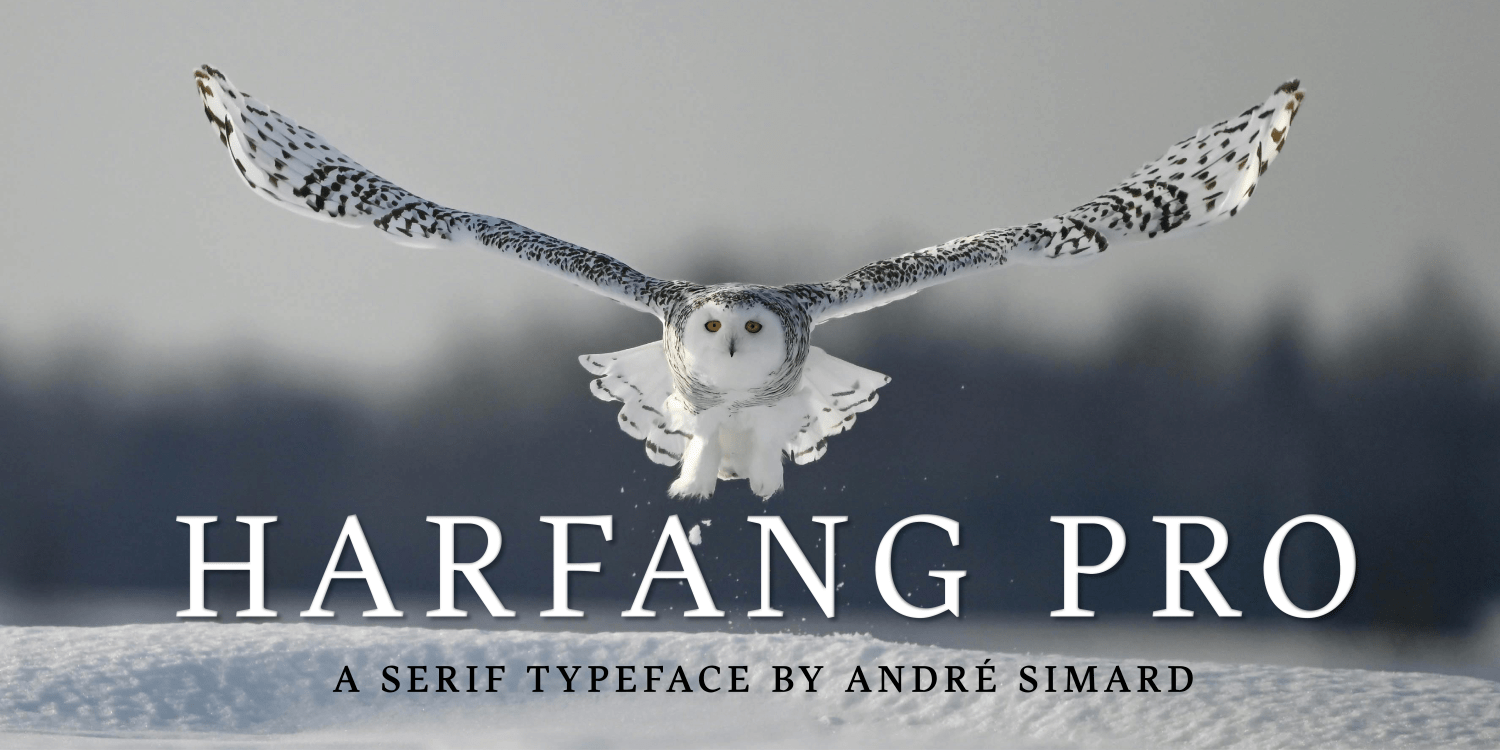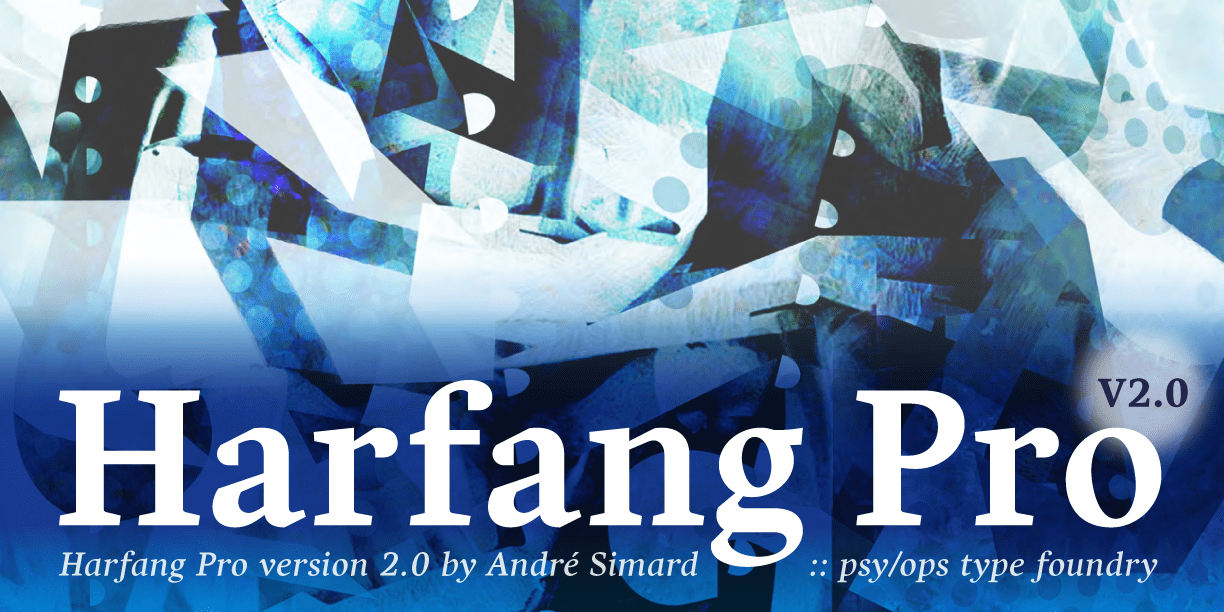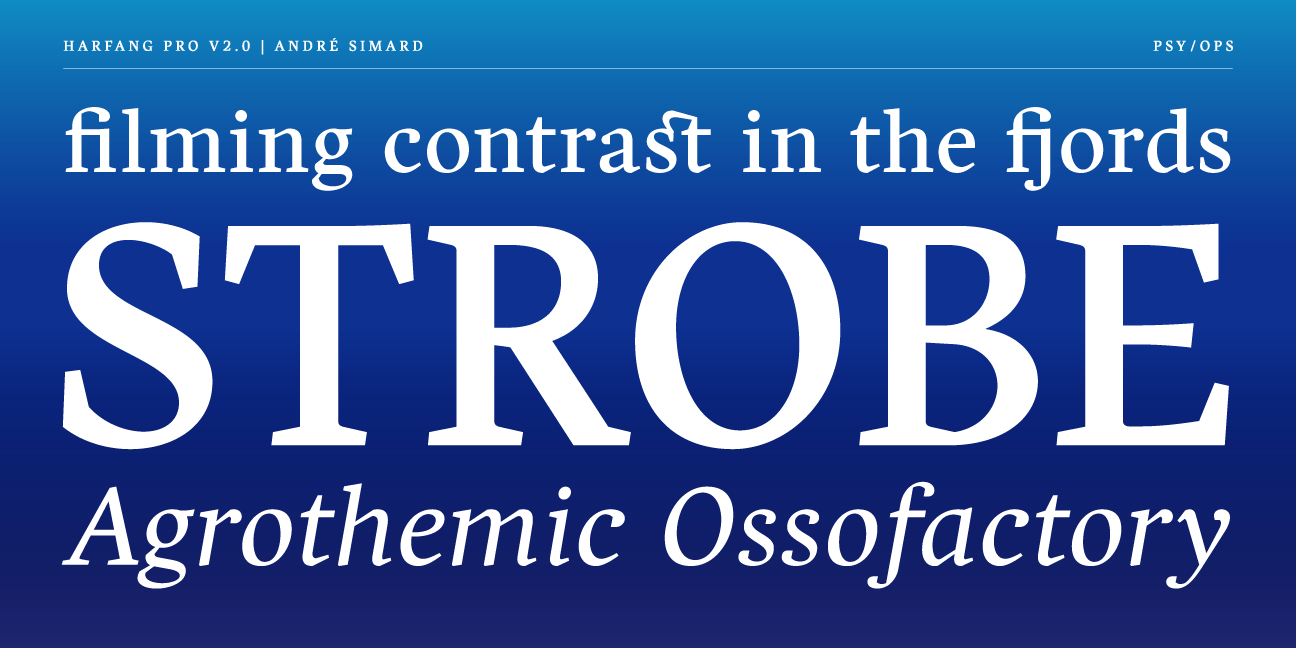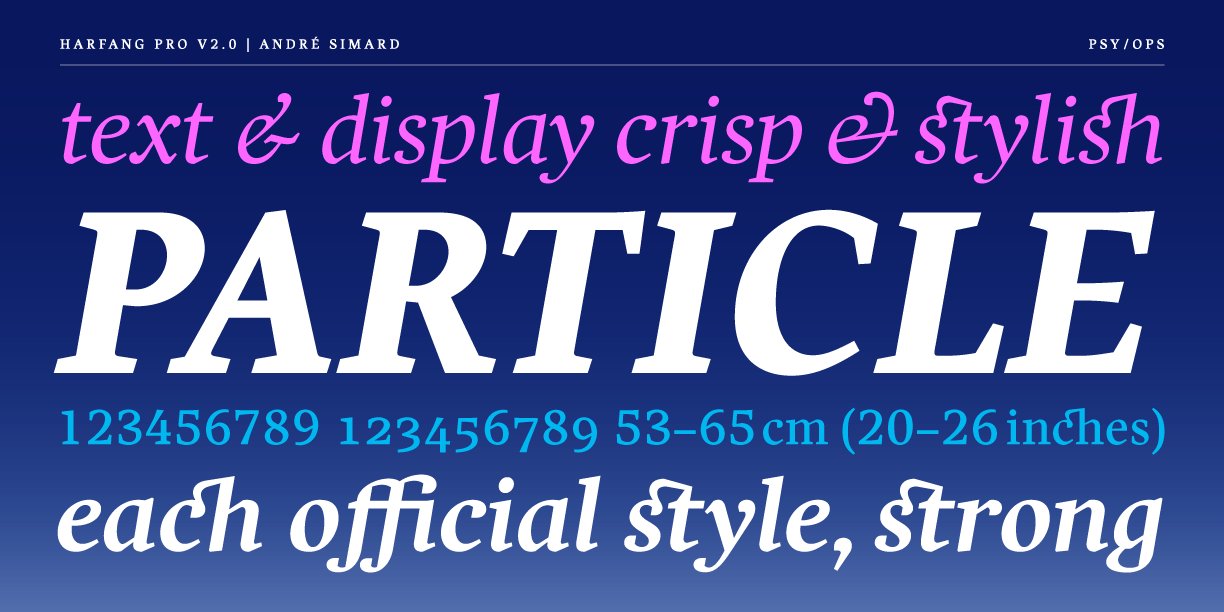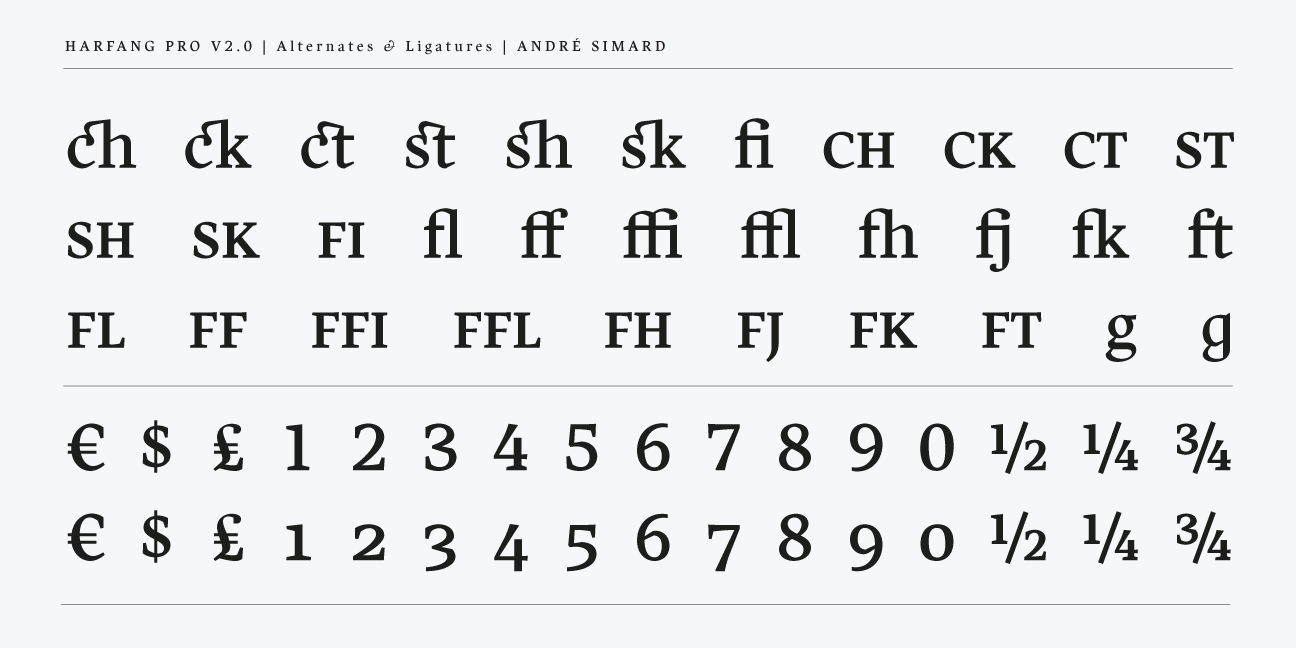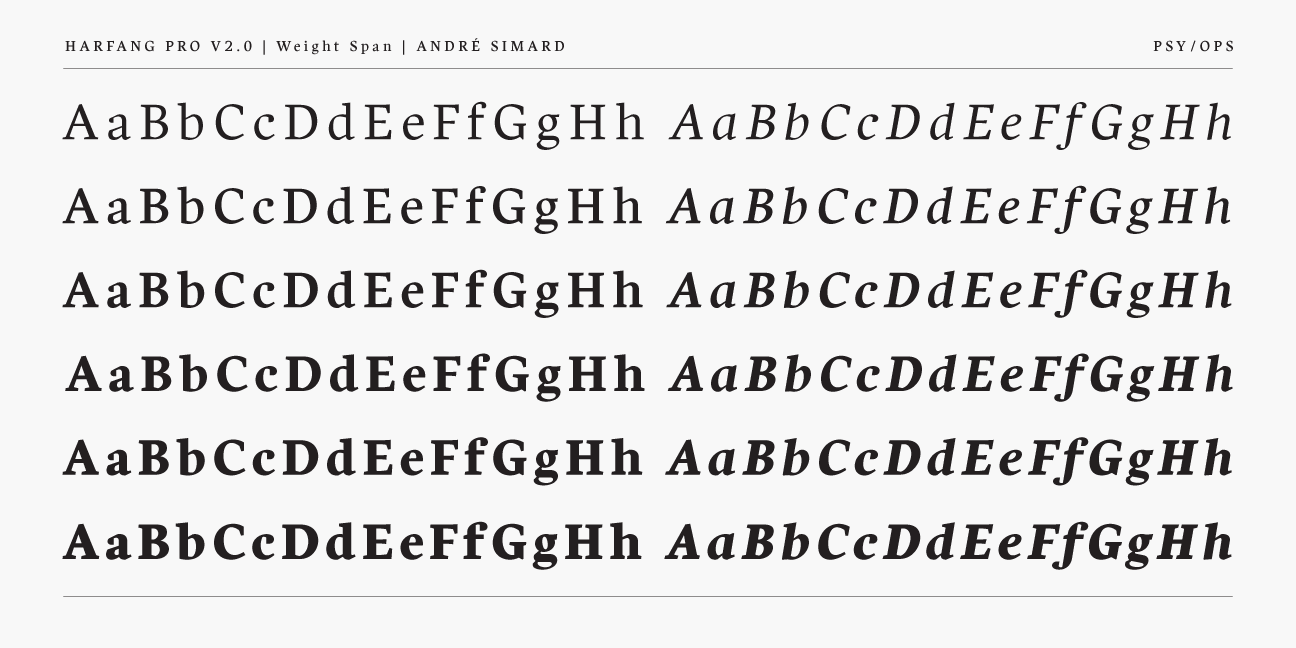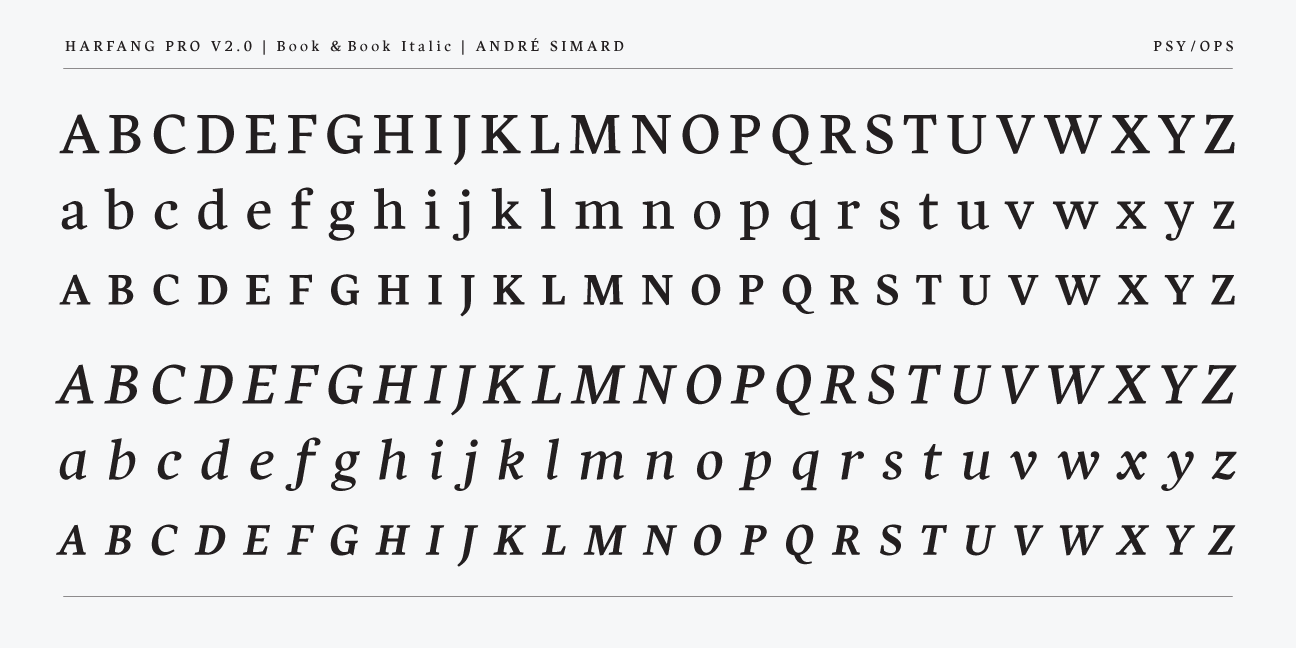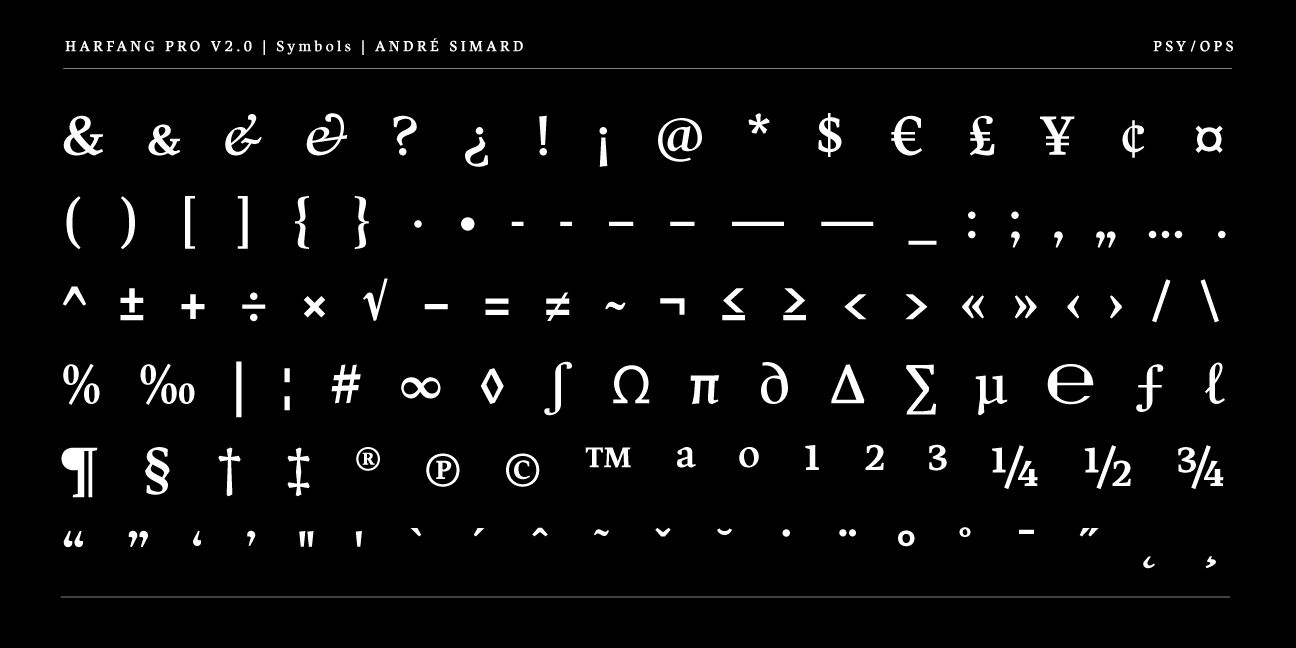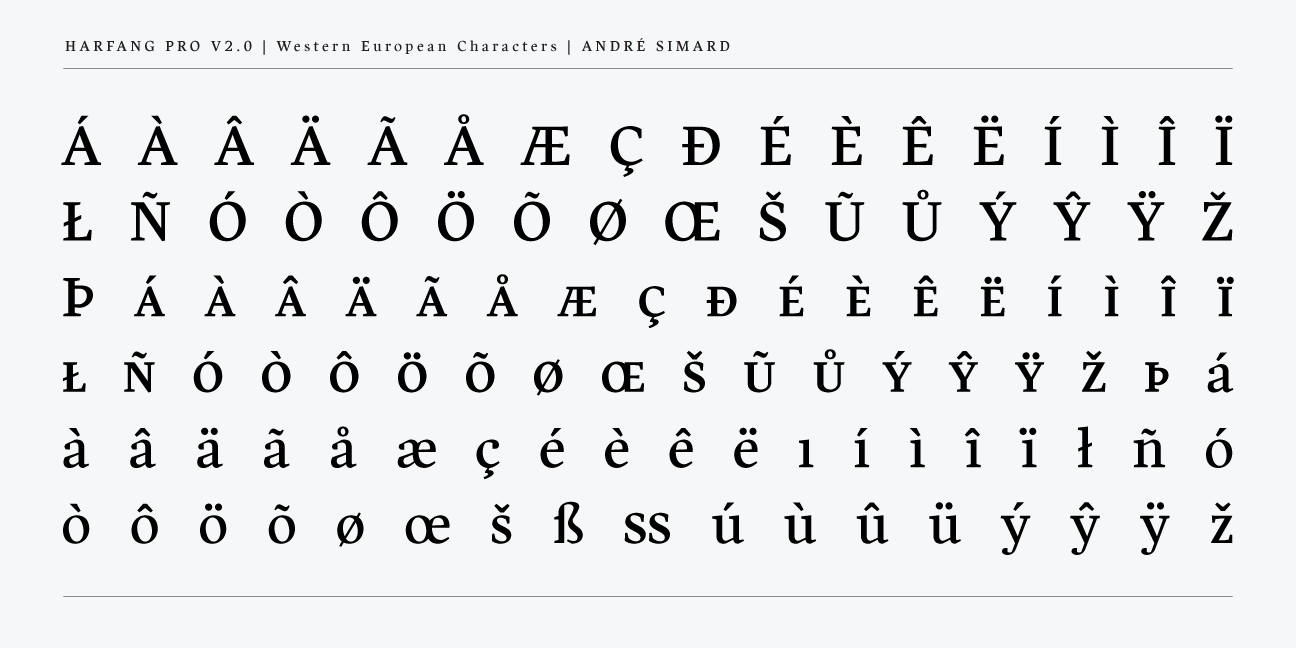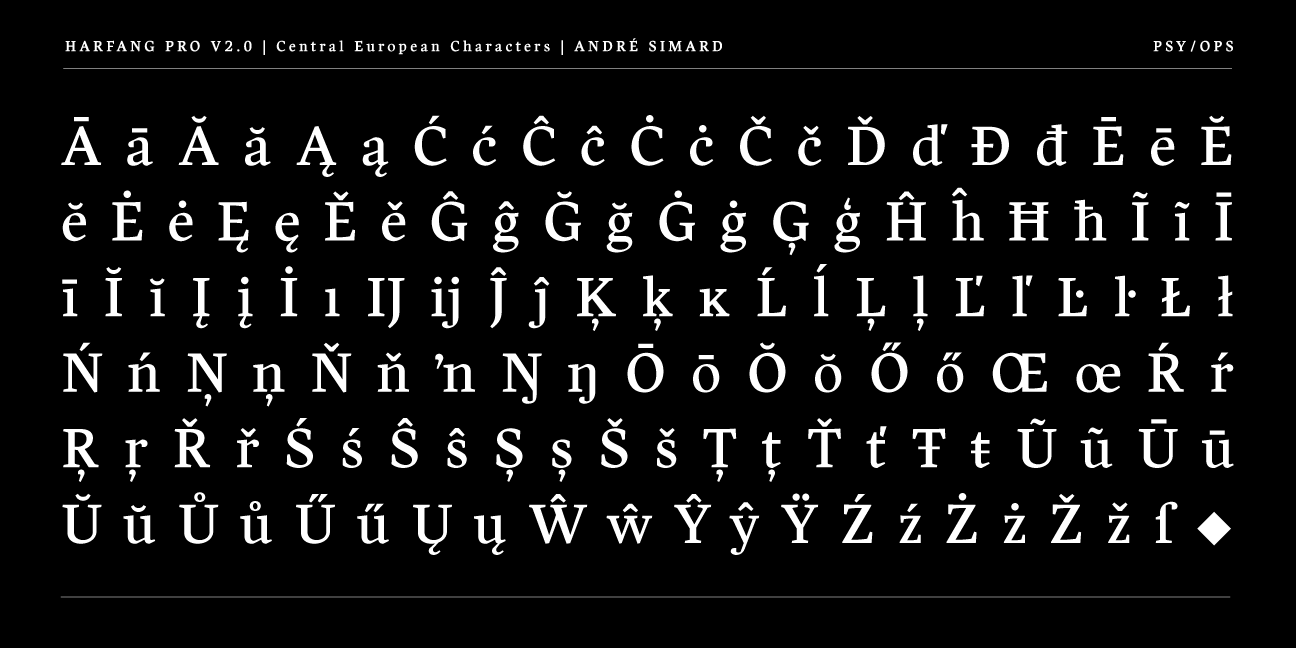
Harfang Pro
Font Family by André Simard
My goal for Harfang was to create a serif typeface that would be easy to read in text sizes while having a strong personality in larger sizes. The initial design had a purely rounded style, but with each development pass, I introduced some angularity. The final result is a typeface that is easy to read in long texts, advertising copy, annual reports and the like; but one that also provides a crisp and stylish appeal in more prominent display settings.
I chose the name Harfang (Harfang des neiges — Snowy Owl or Great White Owl) because, after my first typeface, Migration, I wanted something with a thematic relation. On a more personal level, Harfang is the official bird of Québec, a country with a long winter and a wonderful, white landscape, and the place I call home. —André Simard
A Complete Set of all 12 fonts is available along with two subsets. Harfang Roman subset contains all 6 upright fonts, and Harfang Italic subset contains all 6 italic fonts. Each Harfang font includes: Extended Western and Eastern European characters, Smallcaps, Stylistic Alternates, Ligatures, Discretionary Ligatures, Mathematical Symbols, Lining Figures/Numerals, Oldstyle Figures/Numerals, and more.